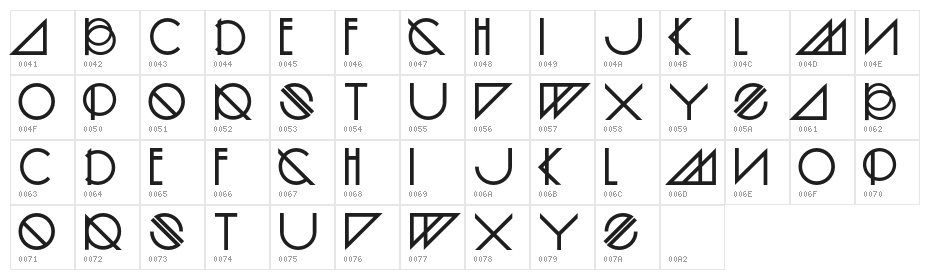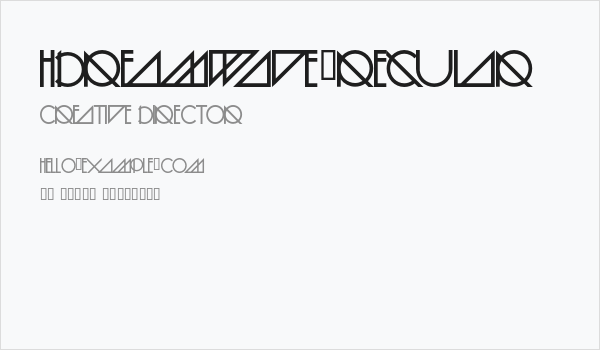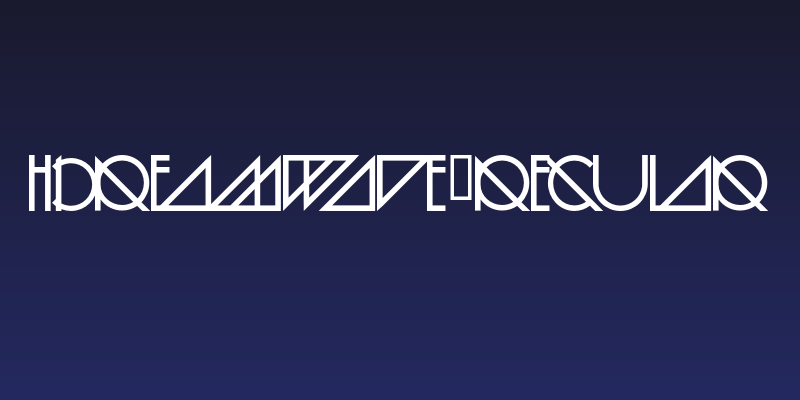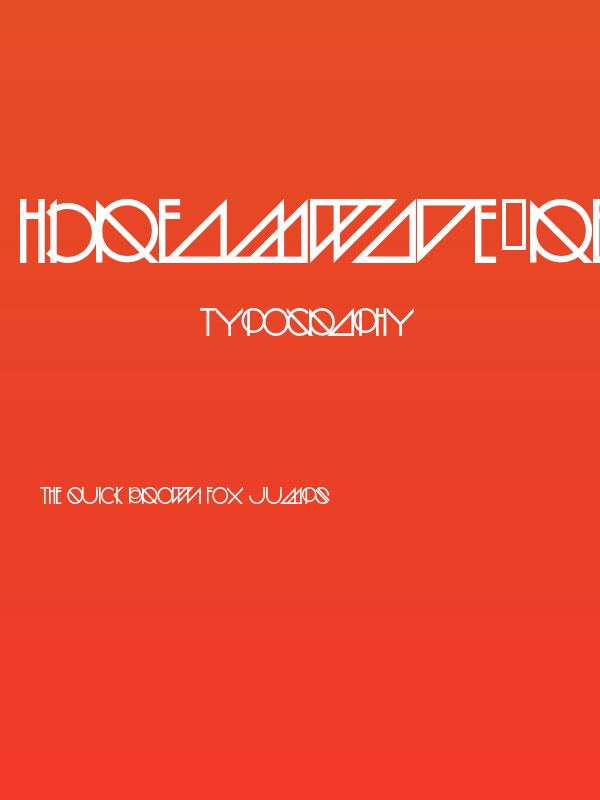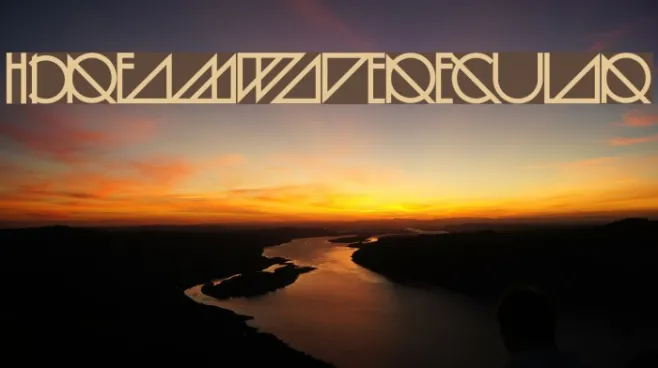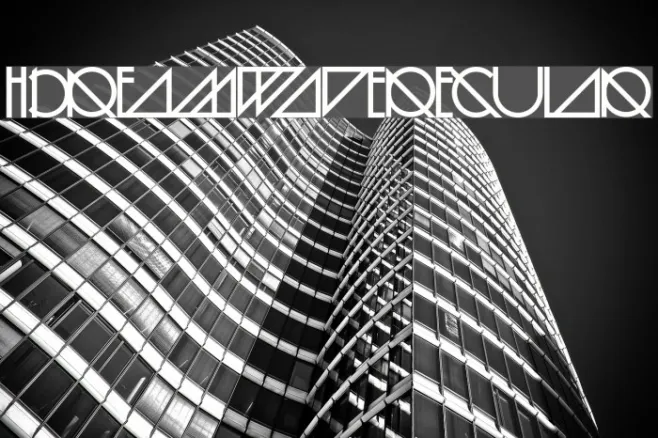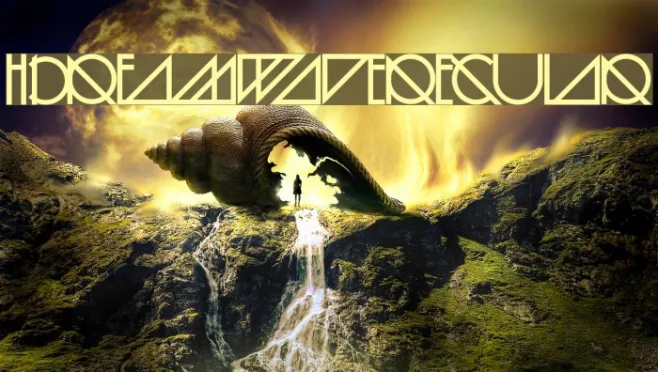
HDreamwave-Regular Font
HDreamwave-Regular Description
This font features a unique and futuristic design with geometric shapes and bold lines. The characters are constructed with a combination of straight and curved lines, creating a sense of movement and modernity. The uppercase letters are particularly striking, with some characters incorporating triangular elements and overlapping strokes. The lowercase letters maintain the same geometric style, ensuring consistency throughout. The numbers and special characters follow the same design principles, making the font versatile for various applications.
| Proposed Projects | Ideal for sci-fi themed designs, tech branding, modern posters, and innovative product packaging. |